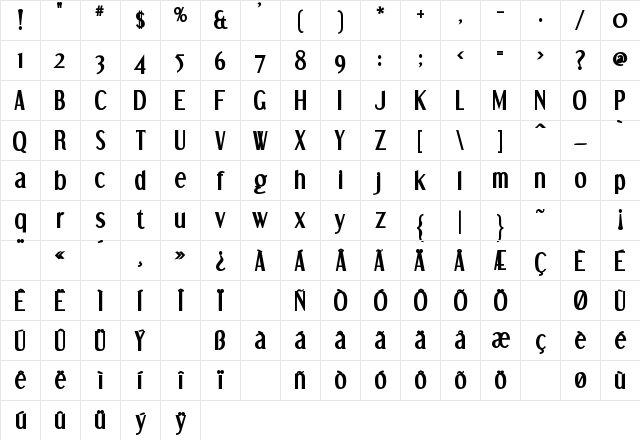
Dream Orphans Bold Free Font
Dream Orphans Bold
Dream Orphans Family
Dream Orphans Bold
Design Context for Dream Orphans
Dream Orphans is a composed and adaptable typeface that performs quietly and consistently across a wide range of design contexts. Its bold stroke weight gives it real presence on the page.